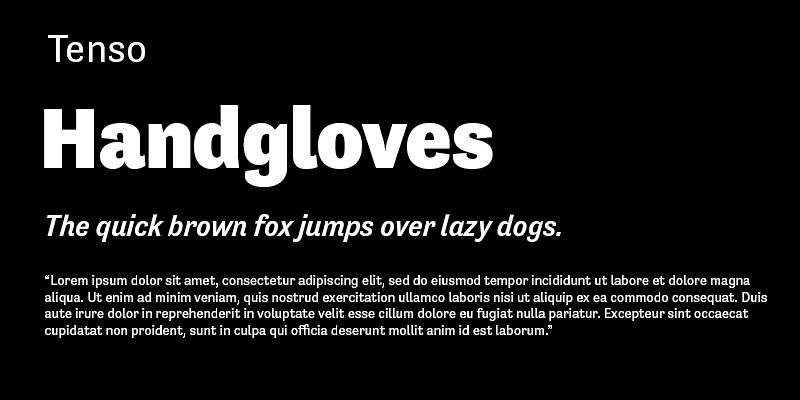
Tenso is an economic running sans serif with a lot of character. It carries some hints of grotesque but on the other hand it has a higher than normal stroke contrast and also a real italic. This balanced mix makes it a playful grotesk sans.
Jos Buivenga lives and works in Arnhem. He started designing type in 1994 and started his exljbris Font Foundry ten years later. He is most known for his Museo font family and also for the way he markets his typefaces.